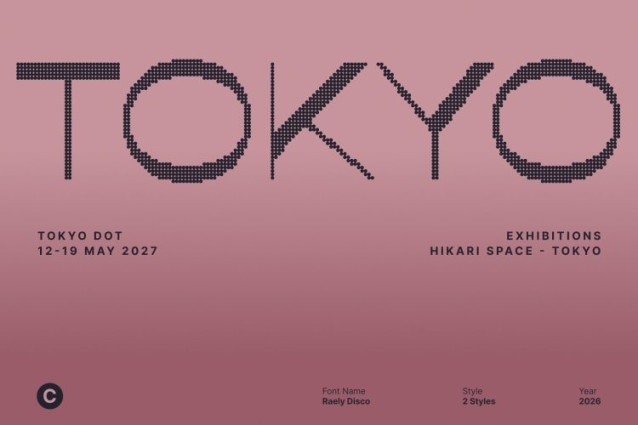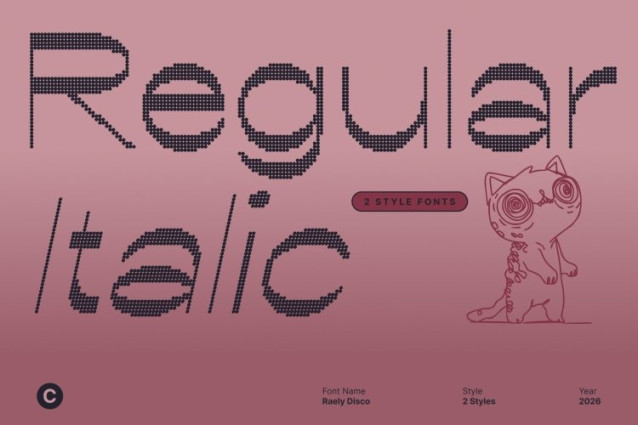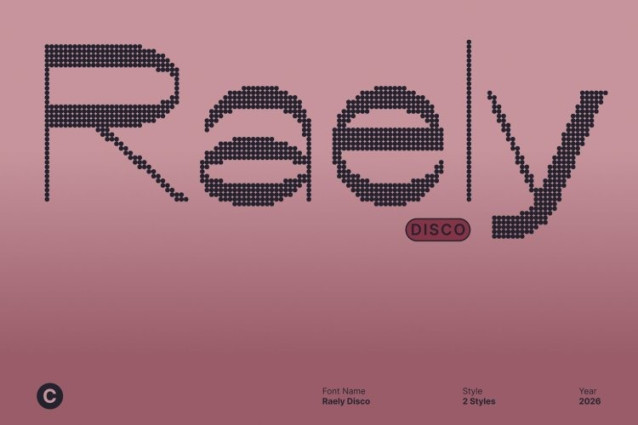
Raely Disco Font
Raely Disco Font This is a sans serif font that fuses retro inspiration, funky reverse contrast, and disco-era excitement into one striking typeface. Its unconventional structure and playful proportions create a visually dynamic rhythm, delivering a look that feels nostalgic, expressive, and full of movement like typography dancing under flashing lights.
Reverse Contrast with Funky, Festive Character
The distinctive reverse contrast gives its standout personality. Thick and thin strokes are flipped in unexpected ways, creating a bold visual groove that feels fresh and unconventional. Combined with funky details and retro flair, this font radiates joy, confidence, and a party-ready spirit.
Retro Vibe Powered by Disco Energy
Inspired by vintage design and energized by disco culture, captures the excitement of music, motion, and celebration. Its lively forms feel bold and animated, making every word pop with charisma perfect for designs that want to feel expressive, fearless, and unforgettable.
Perfect for Posters, Branding, and Eye-Catching Displays
This font shines in creative displays such as posters, logos, event branding, album covers, and promotional graphics. Its strong personality ensures high impact at large sizes, while its balanced construction keeps it usable across a variety of layouts.